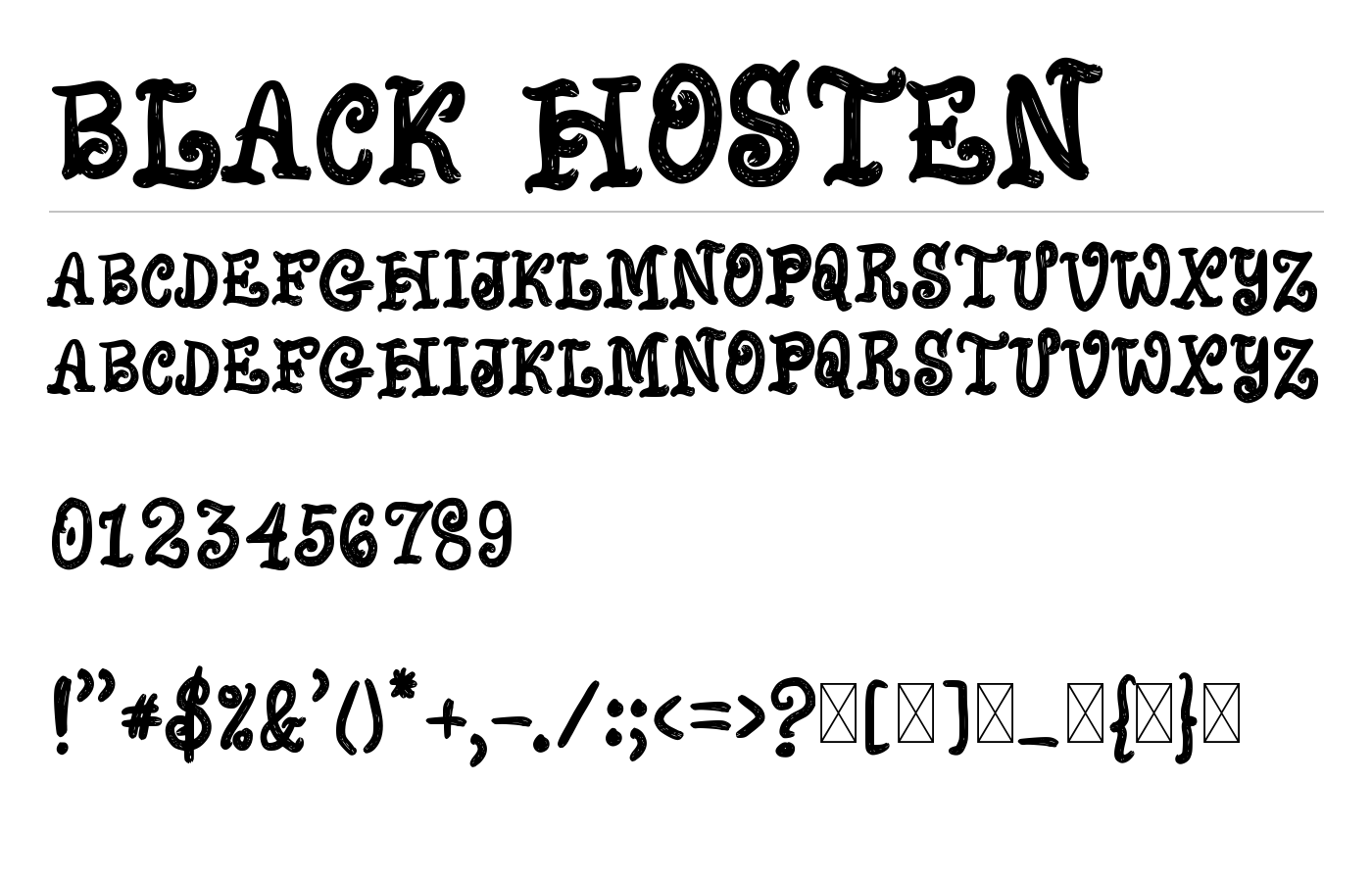
Black Hosten is a bold, decorative serif font with a playful and whimsical character, featuring thick strokes accented by lively curly details and unique serif shapes. Its uppercase-only style and quirky letterforms make it ideal for eye-catching headlines, posters, and creative branding that seeks a fun, vintage carnival or circus vibe. This font adds personality and charm, perfect for designs that want to stand out with a lighthearted yet distinctive look.
Black Hosten Font
About Black Hosten Font
| Font family | Black Hosten Font |
| Designer | M Arif Dwi Prasetyo & Eko Nurcahyo |